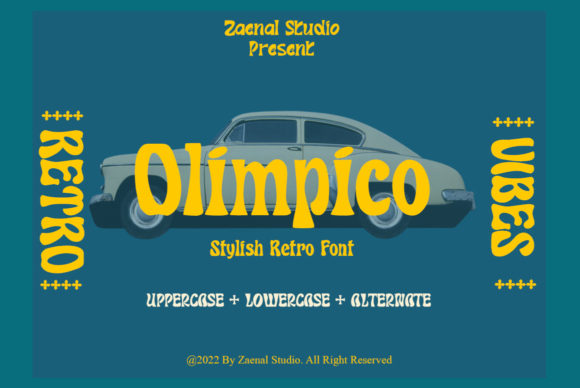
Calling all design enthusiasts and creative minds! Get ready to elevate your visual masterpieces with Olimpico Font, the enchanting display font that will add a touch of magic to your designs.
Olimpico Font is not just another font; it's a gateway to a world of boundless creativity. With its quirky and captivating personality, this font is perfect for those who dare to stand out from the crowd. Whether you're crafting a modern resume, designing an eye-catching logo, or unleashing your imagination in the realm of branding, Olimpico Font is the perfect companion for your artistic journey.
But what sets Olimpico Font apart? It's the little details that make all the difference. The font's carefully crafted ligatures dance across your screen, creating a symphony of elegance and uniqueness. Each letterform is a work of art, inviting you to explore new horizons of design.
This font is more than just a collection of characters; it's an invitation to let your creativity soar. With Olimpico Font, you'll discover a world of possibilities, where your designs will come alive with personality and charm.
With Olimpico Font, you'll create designs that not only captivate but also leave a lasting impression. It's the perfect choice for those who want their work to stand out, to inspire, and to make an unforgettable statement.